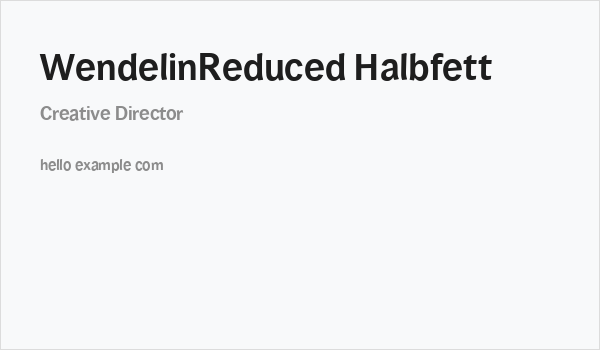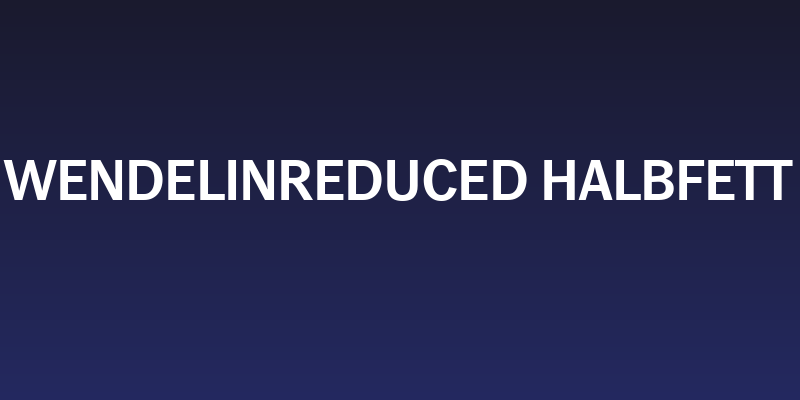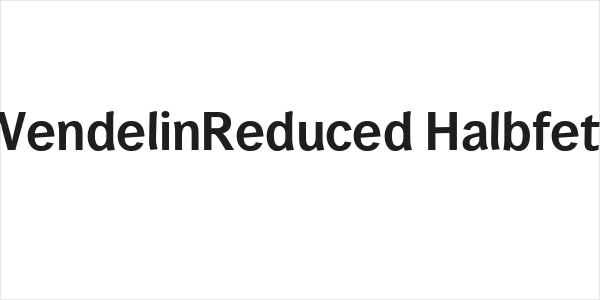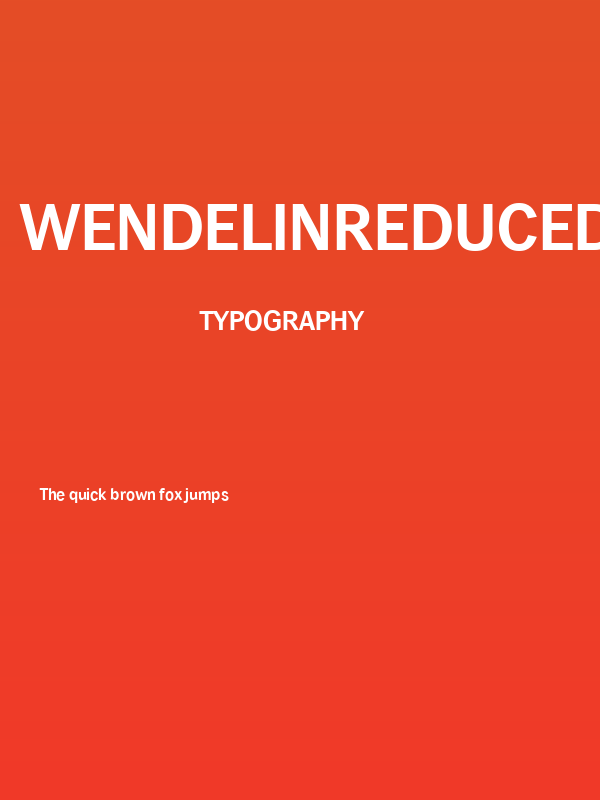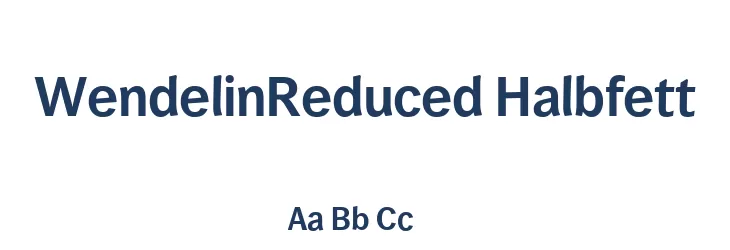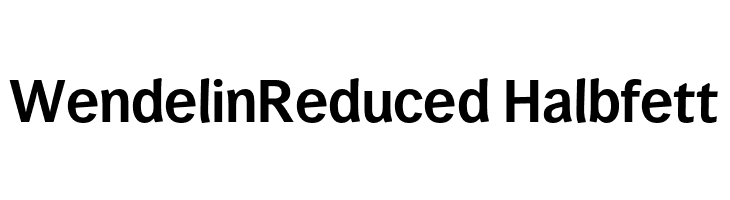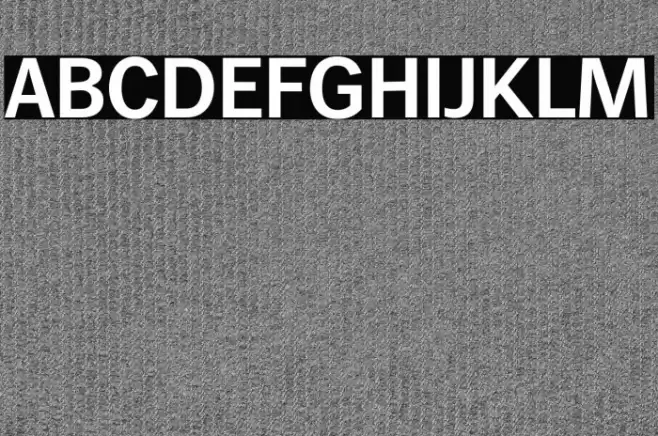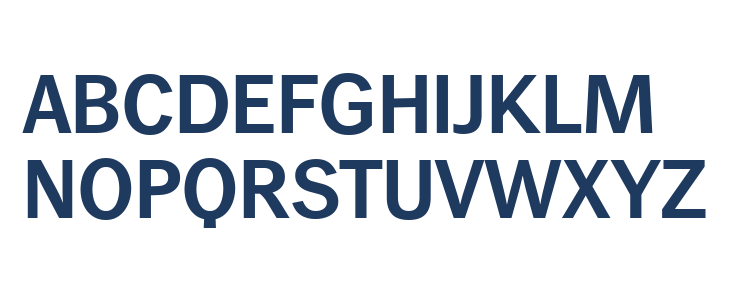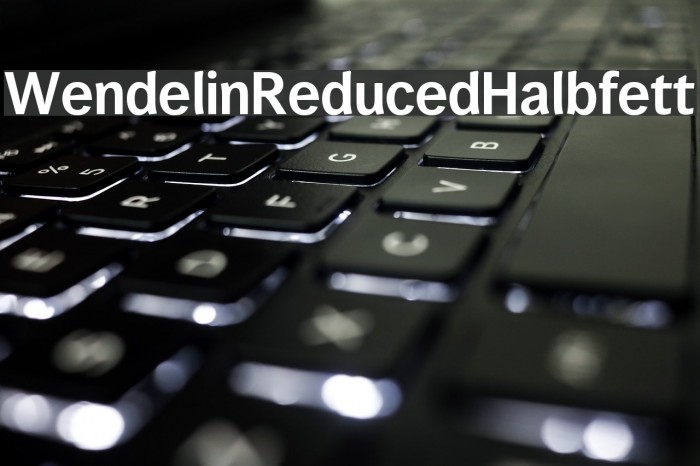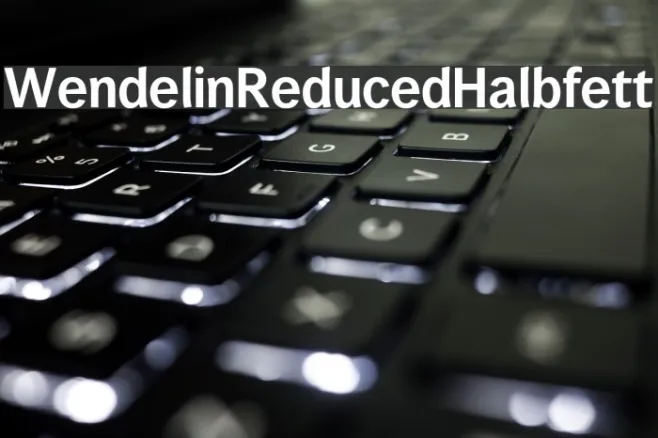
WendelinReduced-Halbfett Font
WendelinReduced-Halbfett Description
This font features a clean and modern sans-serif design with a strong presence. The characters are bold and well-defined, offering excellent readability. The uppercase and lowercase letters maintain a consistent style, with slightly rounded edges that add a touch of softness to the overall appearance. The numerals are clear and proportional, making them suitable for various applications. Special characters are distinct and well-integrated into the font's design. The uniform stroke width contributes to a balanced and harmonious look, making it versatile for both digital and print media.
| Proposed Projects | Ideal for branding, advertising, headlines, and digital content where clarity and impact are essential. |